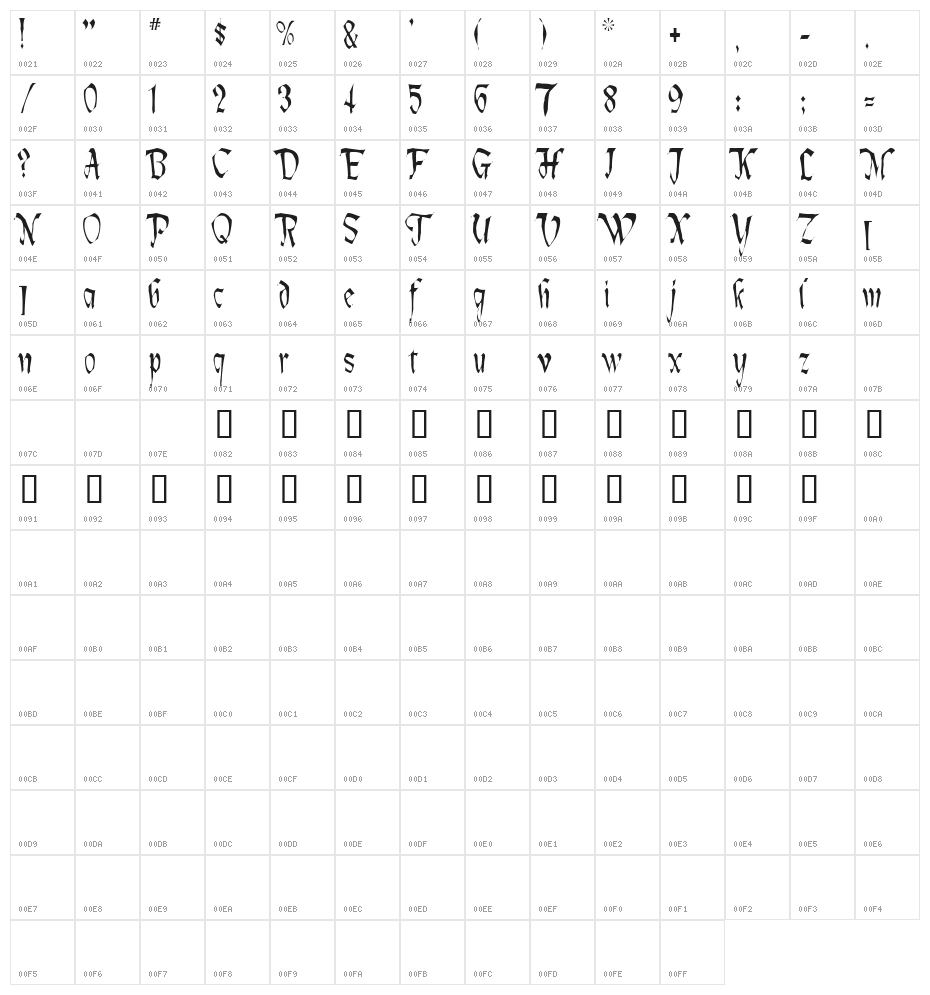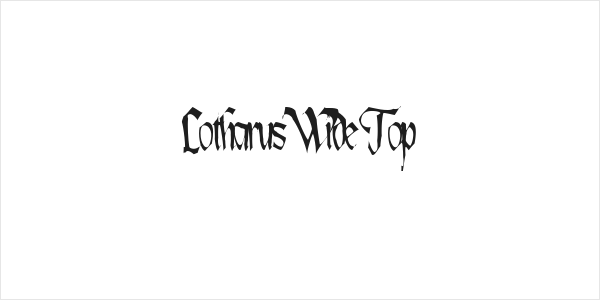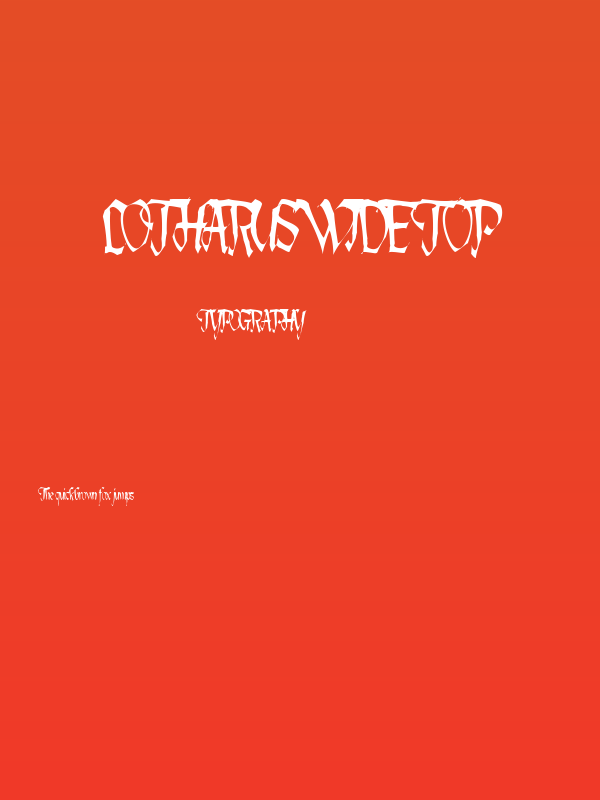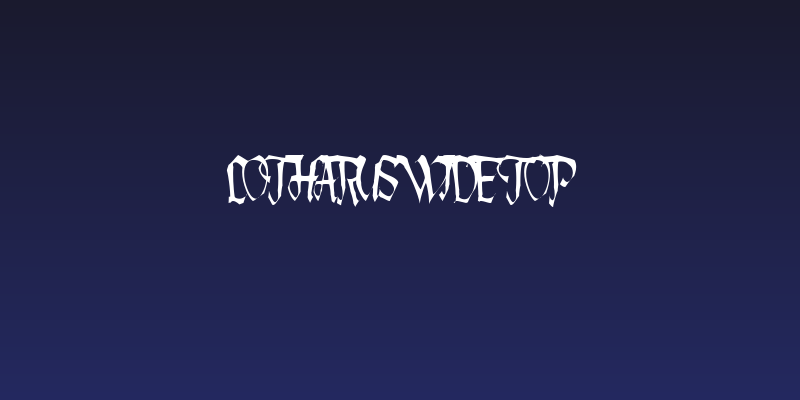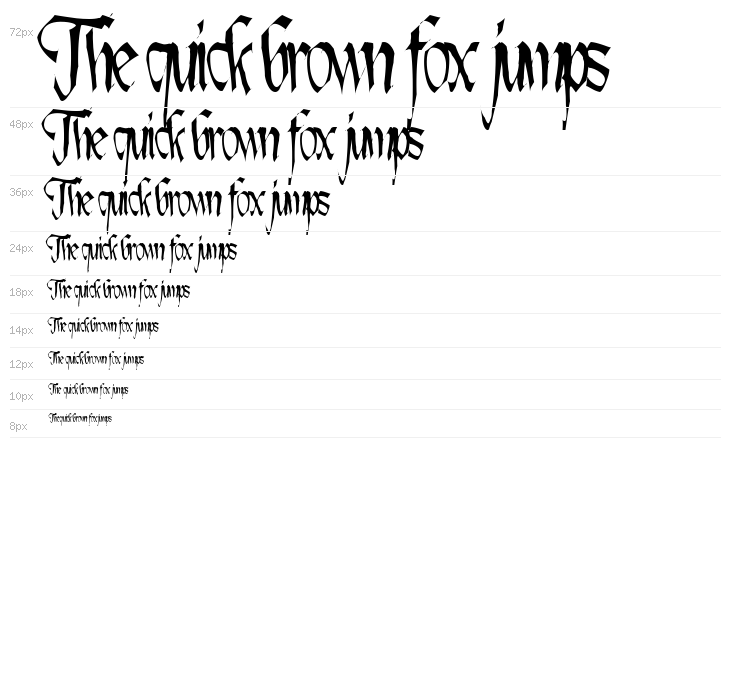
Lotharus Wide Top Font
Lotharus Wide Top Description
This font features a bold and dramatic style with sharp, angular strokes that create a sense of movement and intensity. The characters are wide and have a distinct Gothic influence, reminiscent of medieval calligraphy. The uppercase letters are particularly striking, with exaggerated serifs and a strong vertical emphasis. The lowercase letters maintain the same angular style, offering a cohesive look across the alphabet. Numbers and special characters follow the same design principles, ensuring consistency throughout. This font is ideal for projects that require a bold, eye-catching display with a touch of historical flair.
Proposed ProjectsIdeal for posters, album covers, book titles, and any design needing a dramatic, historical touch.